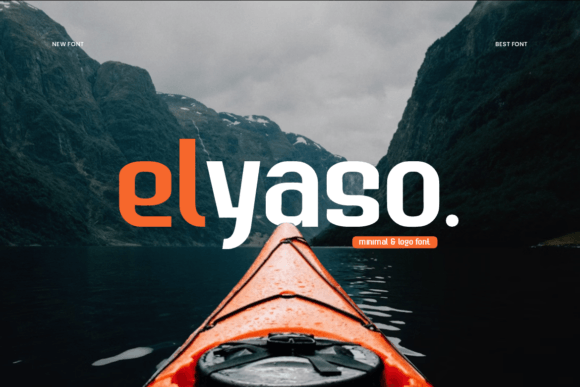
Elyaso Font: The Ultimate Choice for Modern Typography
In the world of typography, fonts play a crucial role in conveying messages, expressing emotions, and creating visual identities. With the vast array of fonts available, choosing the right one can be daunting. However, if you’re looking for a clean, modern, and versatile font, look no further than Elyaso Font. In this article, we’ll delve into the features, benefits, and uses of Elyaso Font, and explore why it’s an excellent choice for your design projects.
What is Elyaso Font?
Elyaso Font is a clean and modern sans-serif font that boasts simple, straight lines and smooth curves, making it easy to read and visually appealing. Its minimalist design gives it a stylish and professional look, perfect for a wide range of applications. Whether you’re working on a website, brochure, or social media campaign, Elyaso Font is an excellent choice.
Key Features of Elyaso Font
- Clean and Modern Design: Elyaso Font features a clean and modern design that exudes simplicity and elegance.
- Simple, Straight Lines and Smooth Curves: The font’s simple, straight lines and smooth curves make it easy to read and visually appealing.
- Minimalist Aesthetic: The font’s minimalist design gives it a stylish and professional look.
- Versatile: Elyaso Font works well in any project that needs a fresh and contemporary feel.
Uses of Elyaso Font
Elyaso Font is a versatile font that can be used in a variety of projects, including:
- Websites: Elyaso Font is perfect for websites that require a clean and modern look.
- Brochures and Flyers: The font’s professional look makes it an excellent choice for print materials.
- Social Media Campaigns: Elyaso Font’s modern design makes it perfect for social media campaigns.
- Headlines and Body Text: The font works well for both headlines and body text, making it a great choice for any project.
Benefits of Using Elyaso Font
Using Elyaso Font offers several benefits, including:
- Improved Readability: The font’s simple, straight lines and smooth curves make it easy to read.
- Professional Look: The font’s minimalist design gives it a stylish and professional look.
- Versatility: Elyaso Font works well in any project that needs a fresh and contemporary feel.
- Easy to Pair: The font is easy to pair with other fonts, making it perfect for complex designs.
Tips for Using Elyaso Font
Here are some tips for using Elyaso Font effectively:
- Use it for Headlines and Body Text: Elyaso Font works well for both headlines and body text.
- Pair it with Other Fonts: The font is easy to pair with other fonts, making it perfect for complex designs.
- Experiment with Different Sizes: Try using Elyaso Font in different sizes to create visual interest.
- Use it Consistently: Use Elyaso Font consistently throughout your design to create a cohesive look.
In conclusion, Elyaso Font is a clean and modern sans-serif font that offers a range of benefits and uses. Its simple, straight lines and smooth curves make it easy to read, while its minimalist design gives it a stylish and professional look. Whether you’re working on a website, brochure, or social media campaign, Elyaso Font is an excellent choice. With its versatility, readability, and professional look, Elyaso Font is the ultimate choice for modern typography.